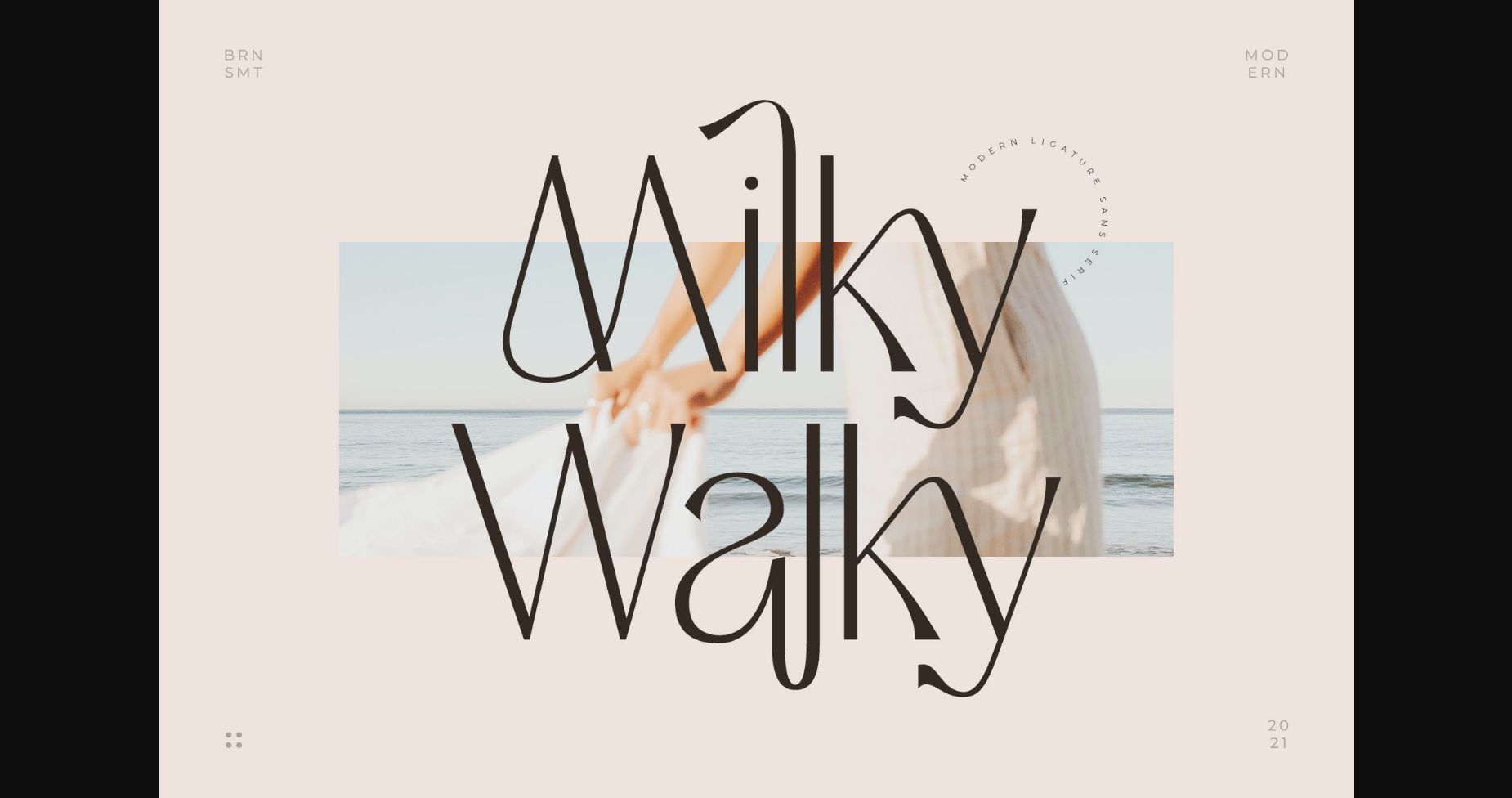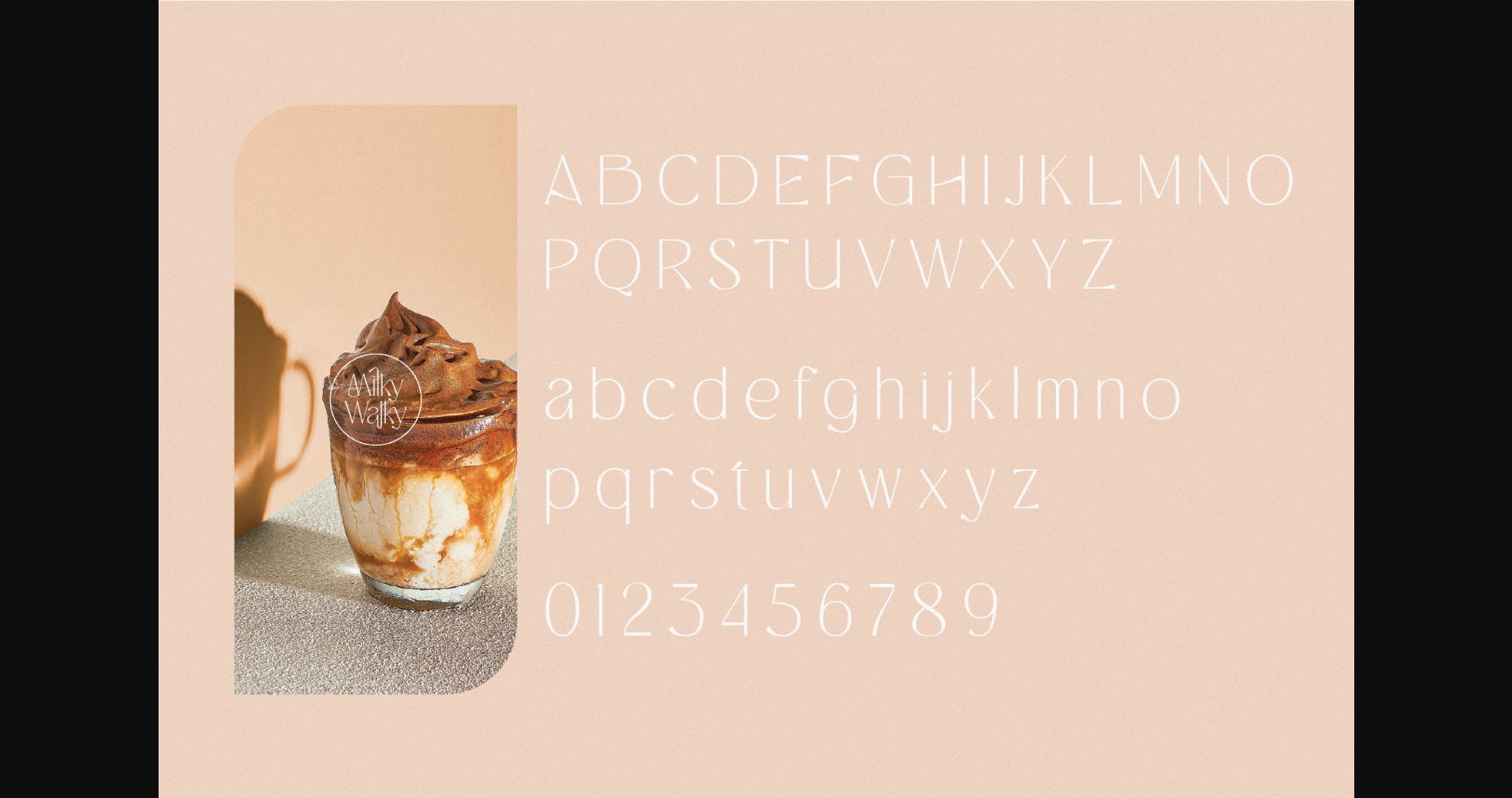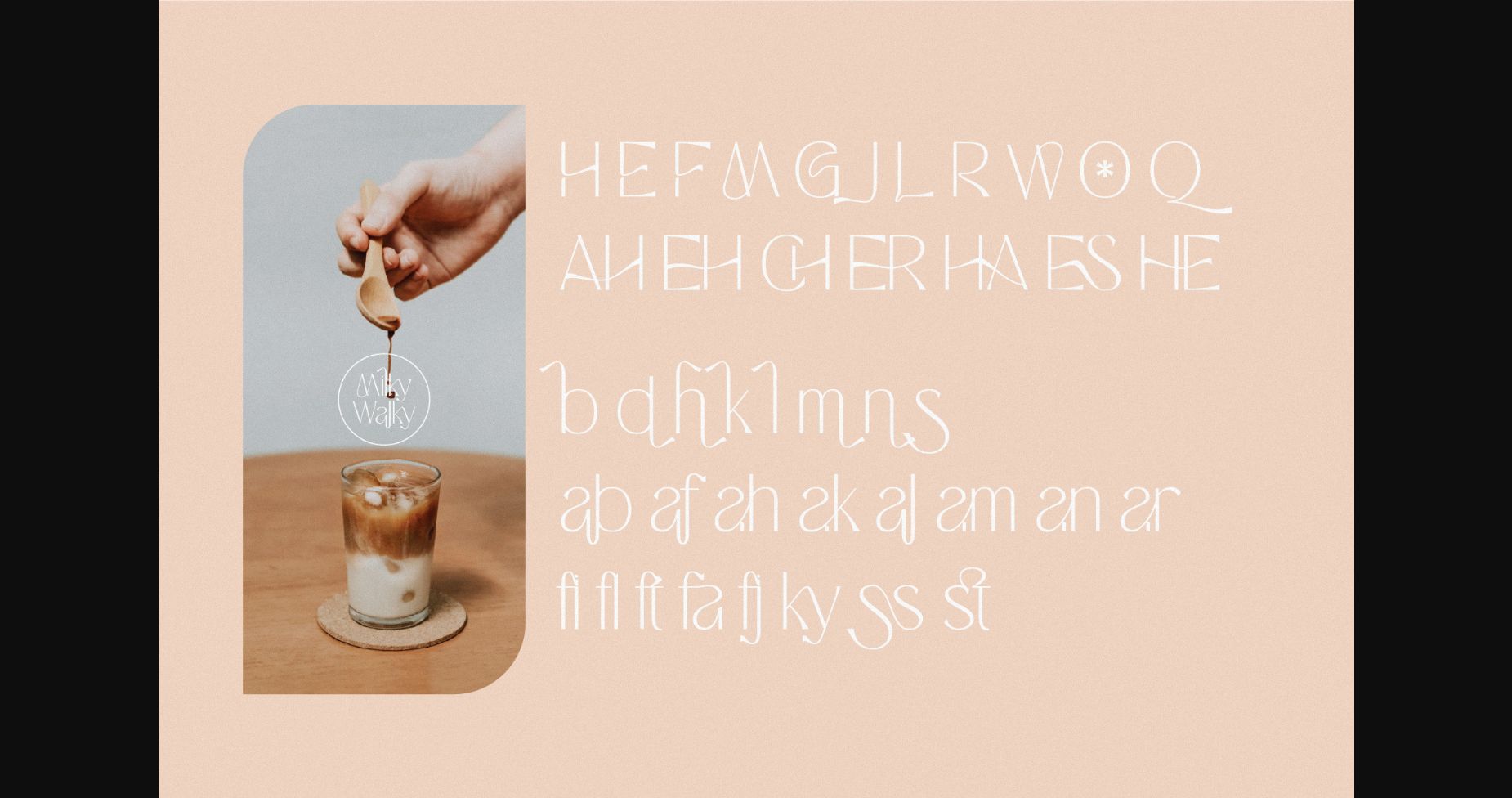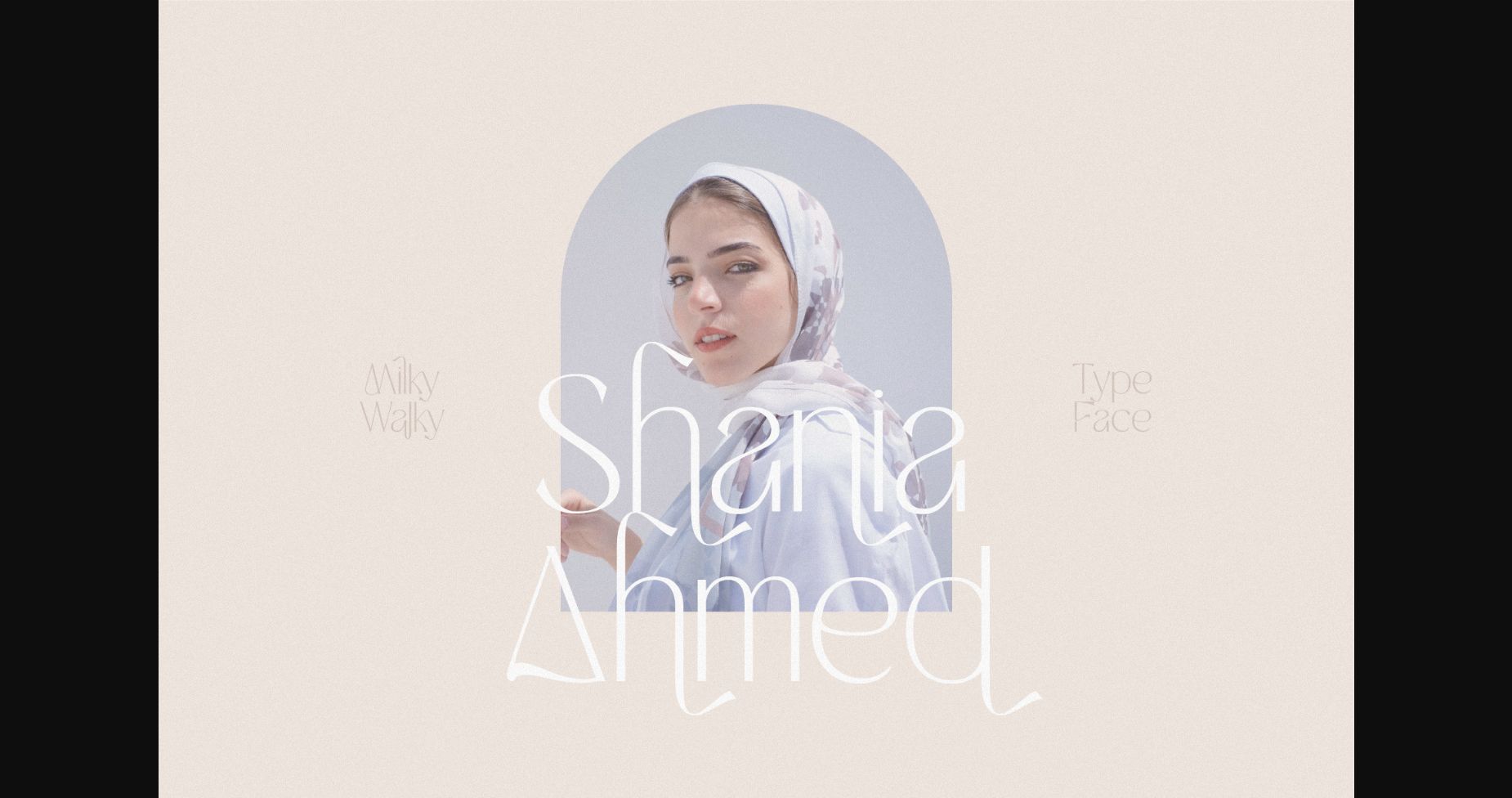
About Milky Walky Font
Milky Walky is a modern and elegant sans serif font. It is defined by smooth curves and is perfect for fashion branding or editorial designs. Add it confidently to your projects, and you will love the results.